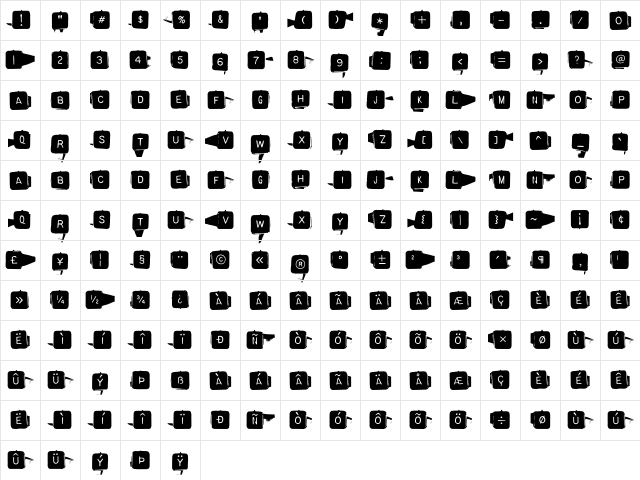
BackspacerSquare Medium Free Font
BackspacerSquare Medium
Design Context for BackspacerSquare
BackspacerSquare is a composed and adaptable typeface that performs quietly and consistently across a wide range of design contexts.